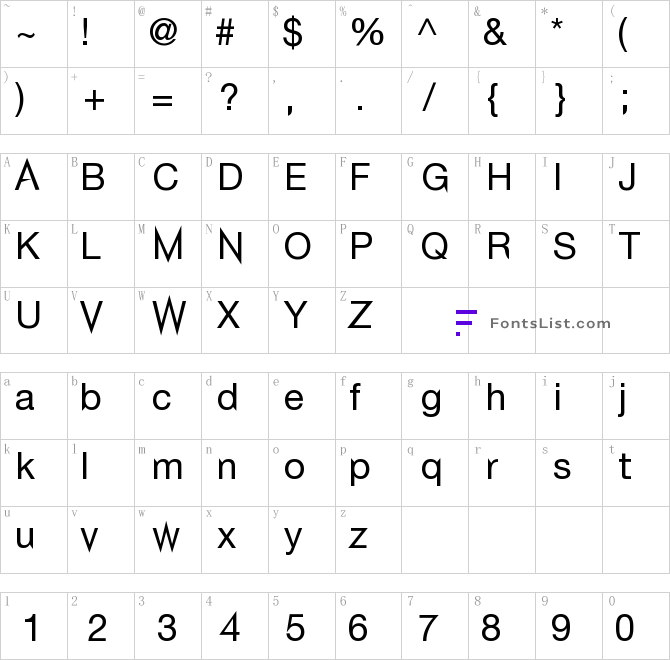
- Font Name:BattleVetica
BattleVetica-Book.ttf is a very beautiful artistic font, BattleVetica-Book.ttf is widely used in the design and printing of various books and pictures,BattleVetica-Book.ttf has a strong visual impact,BattleVetica-Book.ttf is a commonly used font in newspapers, magazines and books, and is used in posters, e-commerce Poster design, store design, logo design, font design and other fields.BattleVetica-Book.